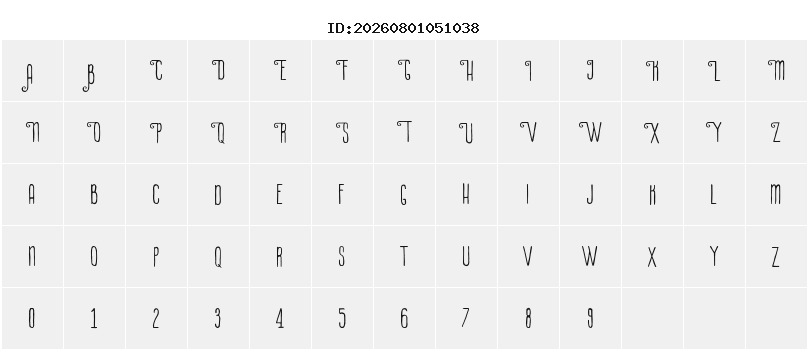
La Petitenget Preview
• Font Name: La Petitenget
• Designer: Burntilldead
• Manufacturer: Eric Kurniawan
About La Petitenget.ttf
La Petitenget.ttf is a modern, elegant sans-serif font designed for ultimate readability and visual harmony. Perfect for branding, headlines, web design, and print materials.